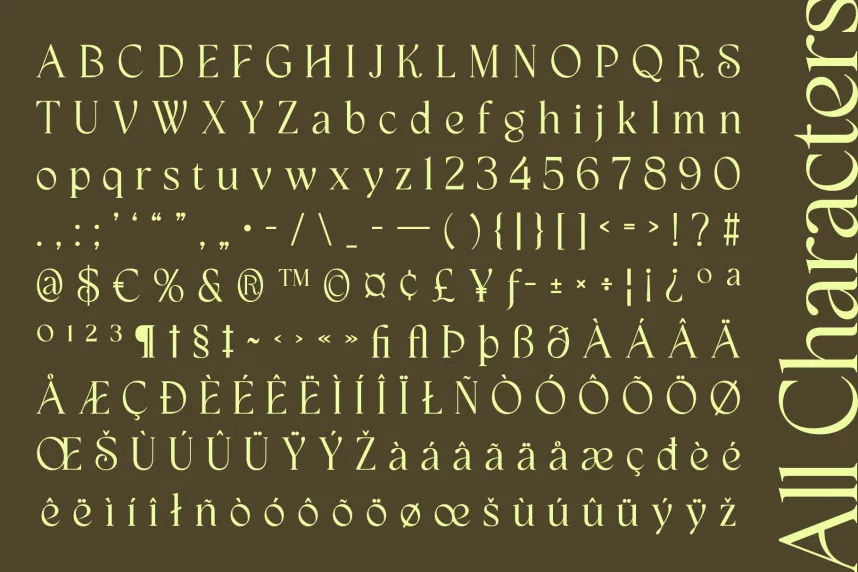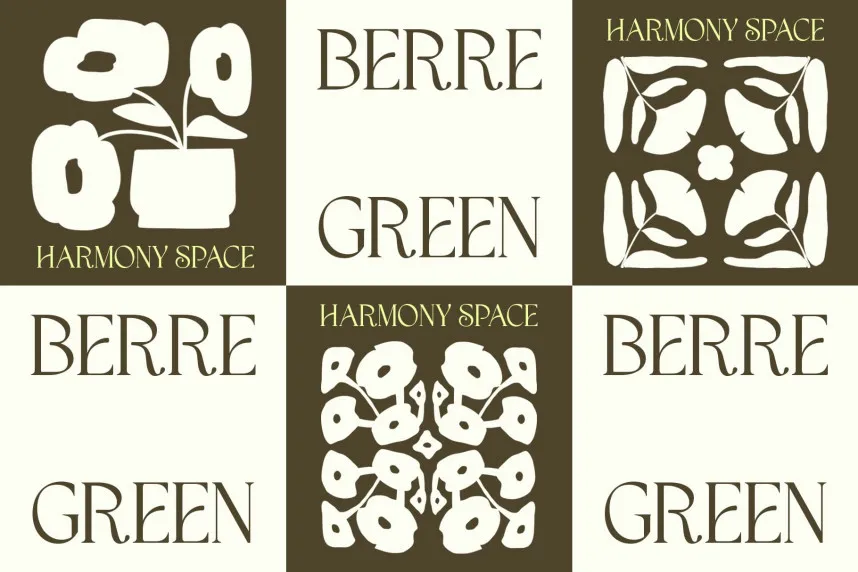
CS Sargent Font is a bold and stylish typeface that combines strength with elegance. It has a clear and modern look that makes it suitable for a wide range of creative projects.
The font is designed to stand out and grab attention while still being easy to read. One of the most attractive features of CS Sargent Font is its versatility.
It works well in digital designs such as websites, social media posts, and mobile apps, as well as in print materials like posters, flyers, and branding projects. Its balanced design makes it a good choice for both headings and subheadings.
The font gives a sense of confidence and professionalism. Designers often choose it when they want to communicate strength, clarity, and modern style in their work.
CS Sargent Font Family
CS Sargent Font
Whether you are working on personal projects or business-related designs, this font can easily adapt to your needs.
Design Style Bold, Elegant, and Professional
Readability Clear and easy to read in all sizes
Overall Impression A stylish and versatile font with strength and elegance
It is also very user-friendly typeface. It is simple enough for beginners to use, yet stylish enough for professional designers. This combination makes it a reliable choice for a wide variety of design tasks.